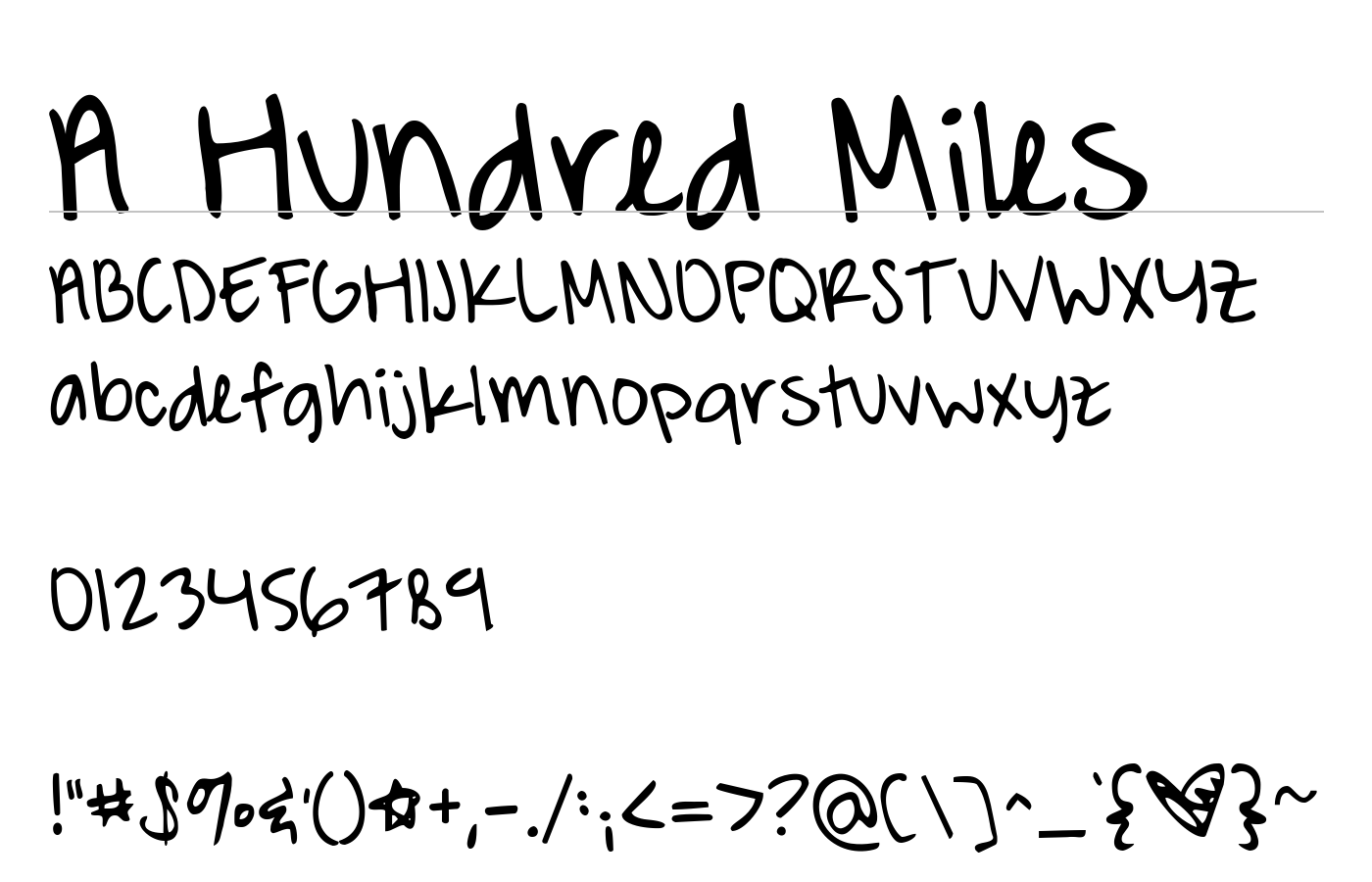
A Hundred Miles is a playful and casual handwritten font characterized by its uneven, lively strokes that mimic natural penmanship. Its light weight and moderate x-height create a friendly, approachable feel, making it ideal for informal designs, children's books, or creative branding that seeks a personal touch. This font works well in headlines or short texts where a whimsical, human quality is desired.
A Hundred Miles Font
About A Hundred Miles Font